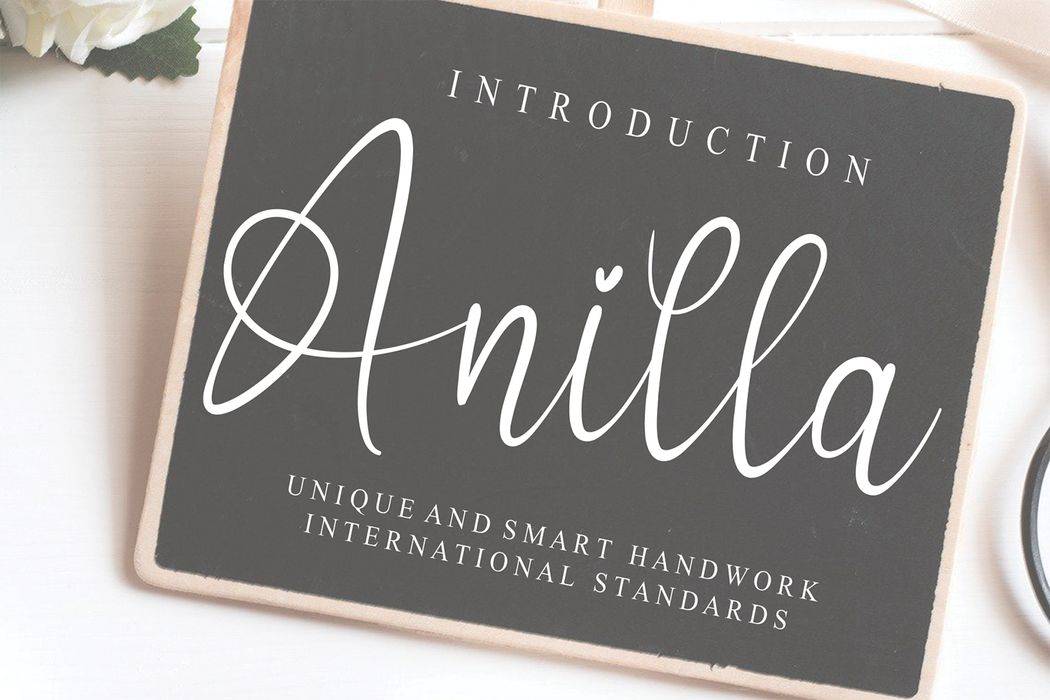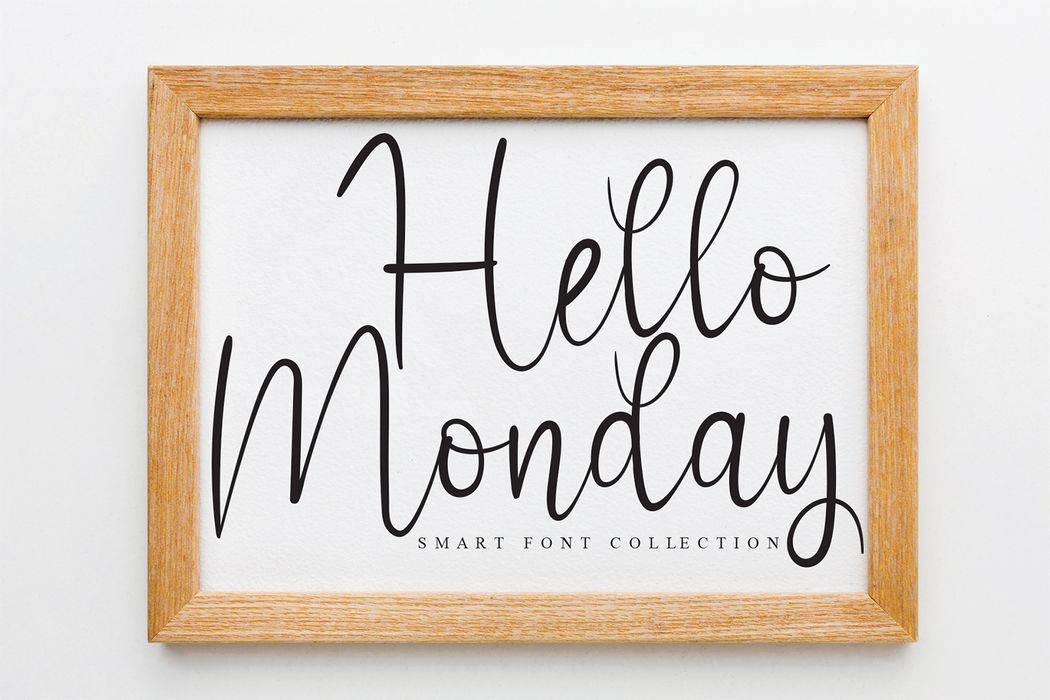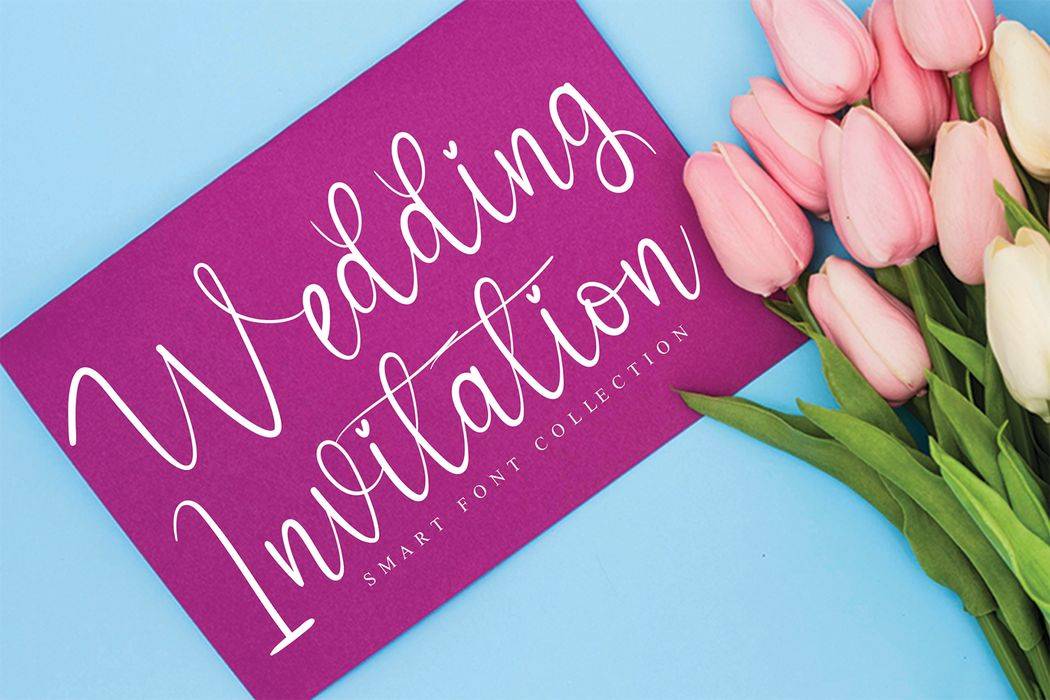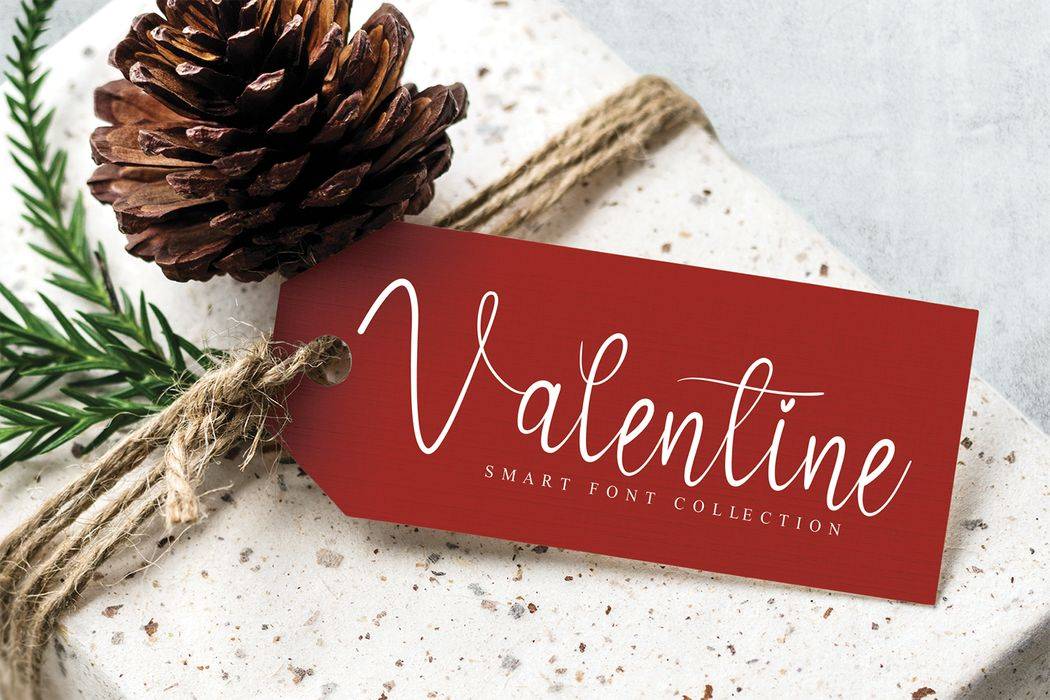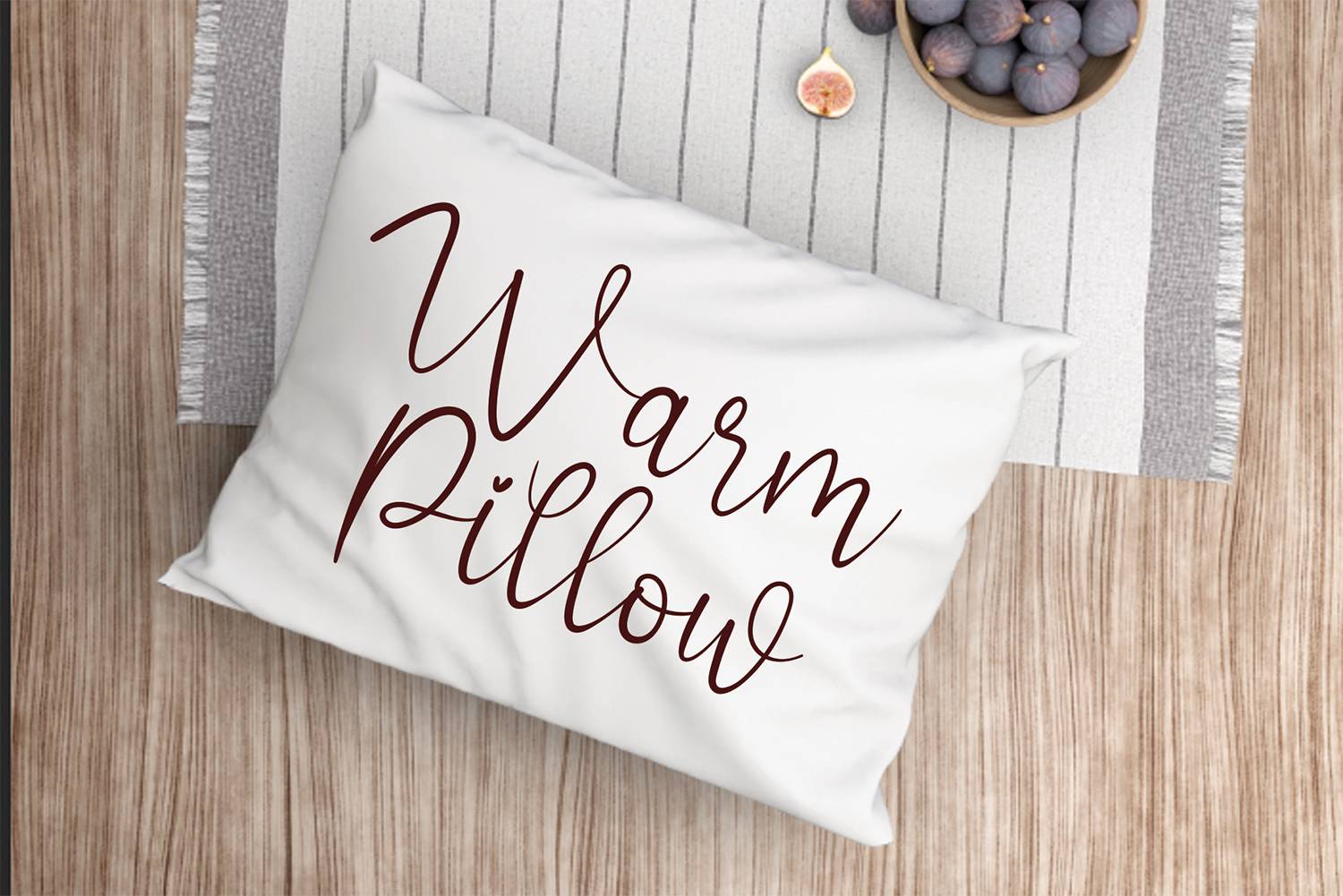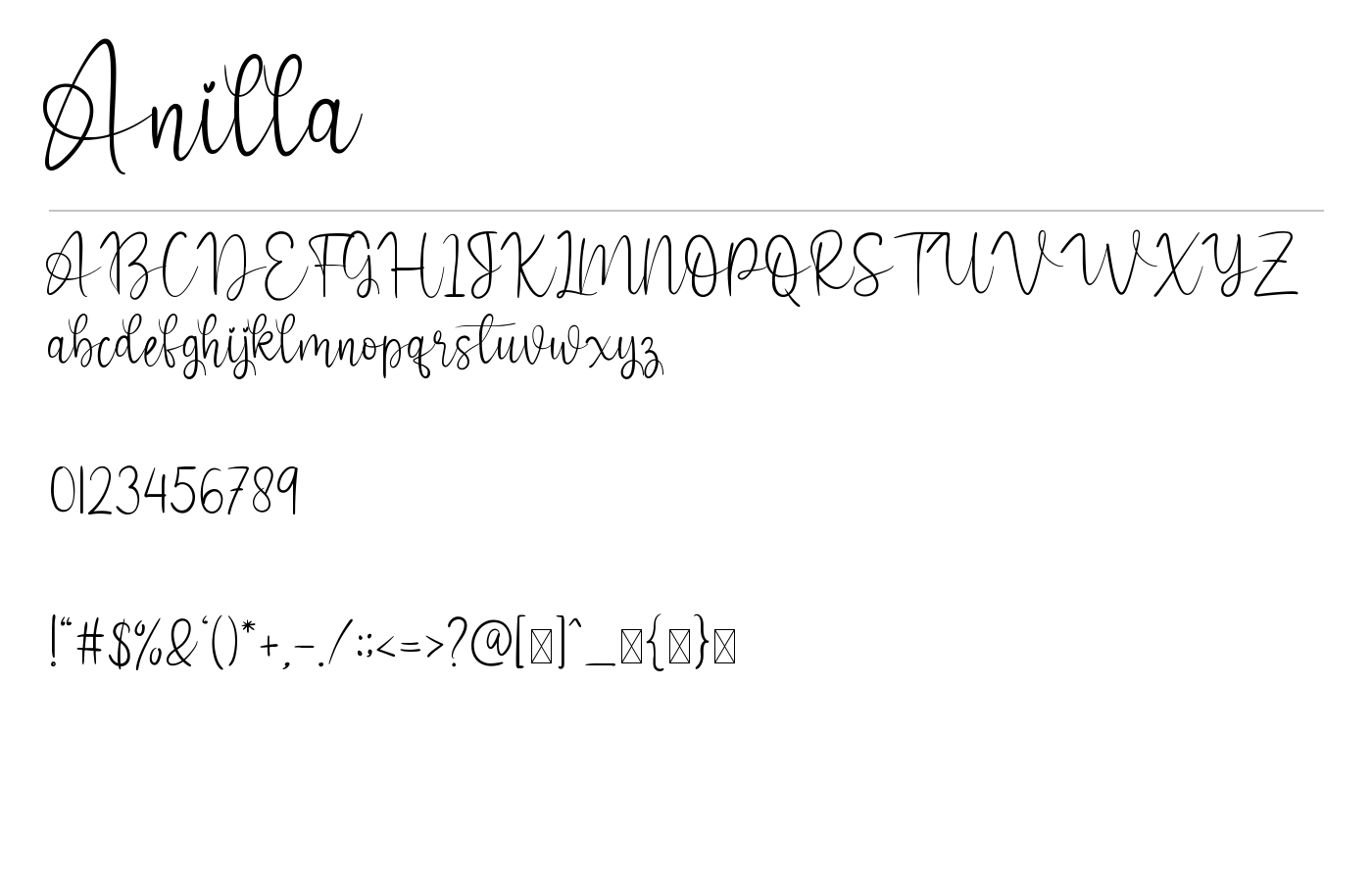
Anilla Font is a delicate, elegant script with a handwritten feel, featuring thin, flowing strokes and charming loops that give it a graceful and whimsical personality. Its light weight and airy spacing make it perfect for invitations, branding, and decorative uses where a soft, personal touch is desired. This font works best in creative projects that benefit from a stylish, feminine, and sophisticated look.
Anilla Font
About Anilla Font